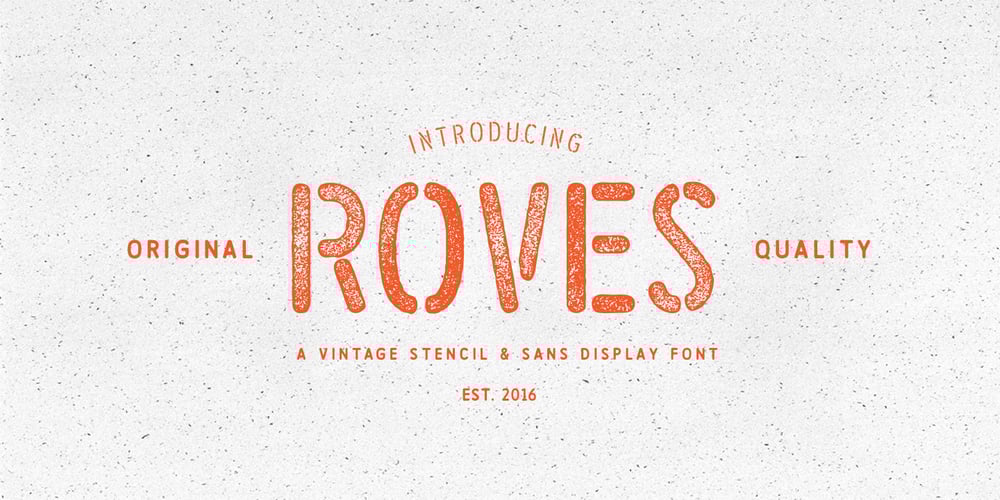
Roves Font Family was designed by Andrew Footit and published by Andrew Footit. Roves contains 10 styles and family package options. Roves is a font family dedicated to exploration, adventure and the early merchants of history. The word rove means “a journey, especially one with no specific destination; an act of wandering”. the family consists of three Stencil versions each with a Regular and Bold weight as well as two Sans versions each also with a regular and bold weight, this is a total of 10 different options to work with. When combined these two fonts create great looking typography that compliment each other but each also strong enough to be used on their own. The Roves family is a display font with a great rust vintage feel to it which gives the user an authenticity when working with typographic projects. Roves has been created with the designer in mind, to create with and explore the different options with in the family.